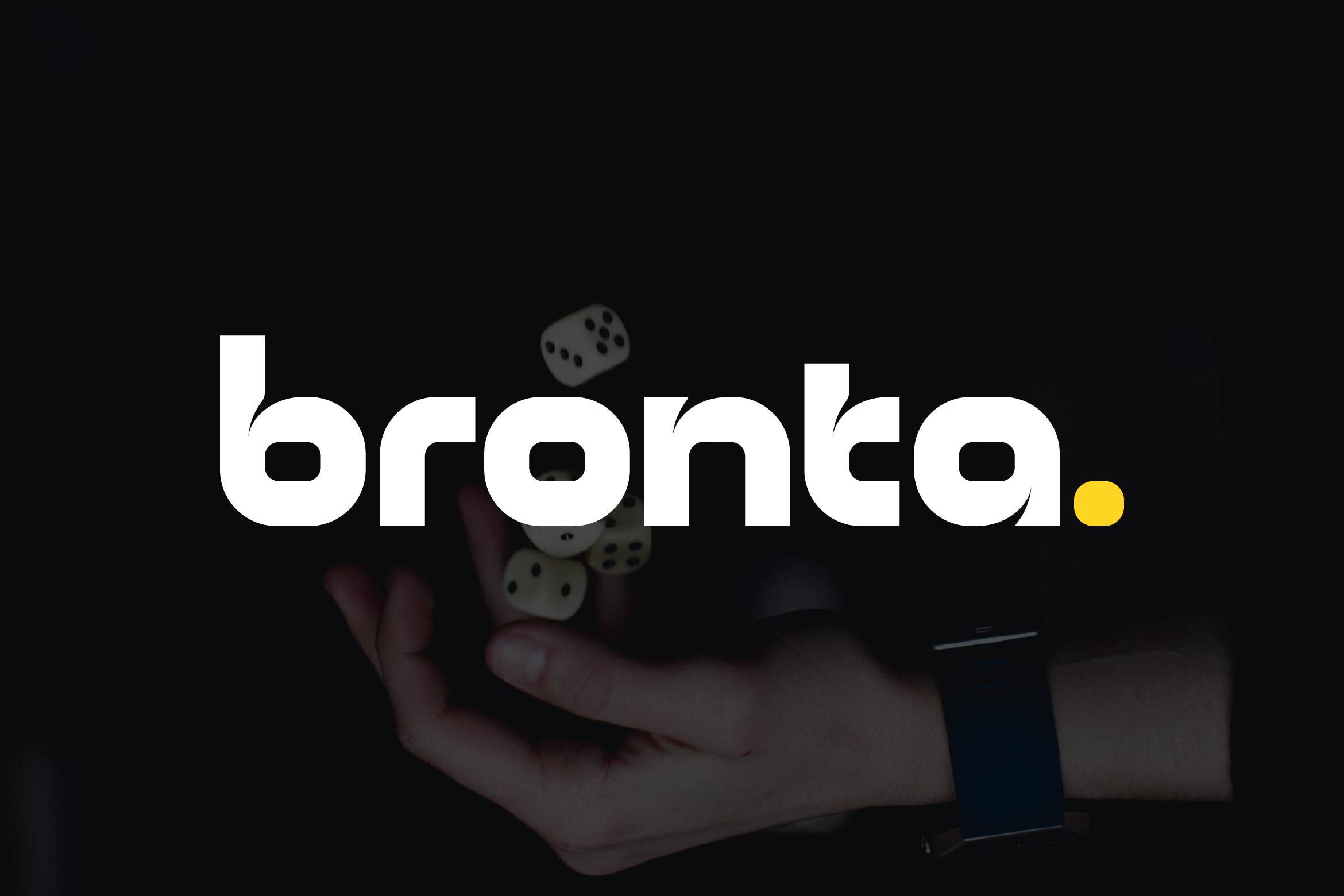
- Bronta Bold Sans Serif Logo Font
Bronta is a clean and bold sans serif font designed specifically for creating powerful and memorable logos. Featuring a geometric structure, sharp edges, and balanced proportions, Bronta delivers a modern, professional look that works perfectly for branding, packaging, website headers, editorial titles, and social media graphics.
Its simple yet distinctive design ensures clarity and high visual impact, making it ideal for various industries such as tech, fashion, lifestyle, and creative agencies. Bronta adapts seamlessly across print and digital platforms, giving your brand a timeless and confident identity.
Build a bold and lasting brand presence with Bronta — the modern logo font that combines precision, simplicity, and strong visual appeal.